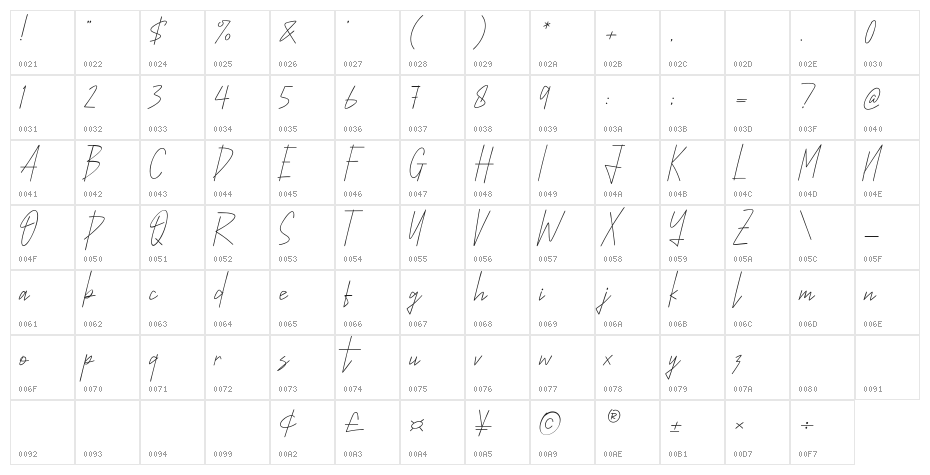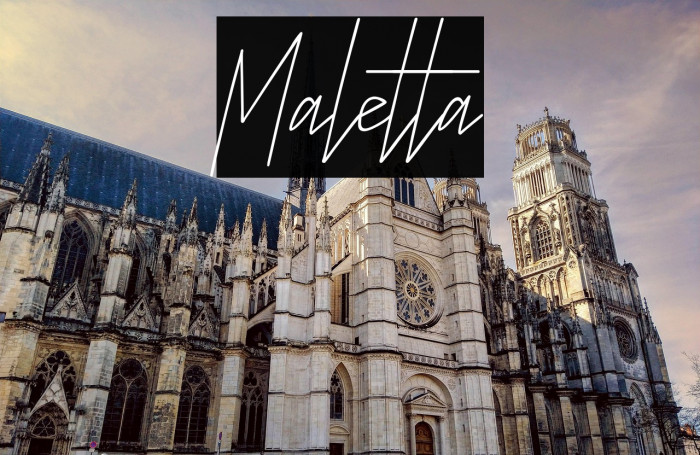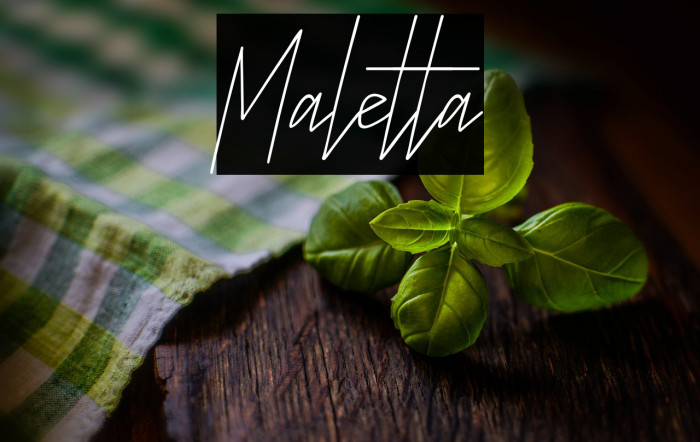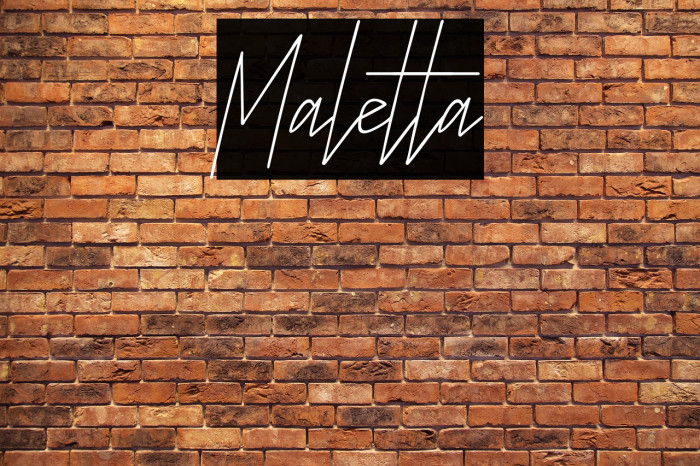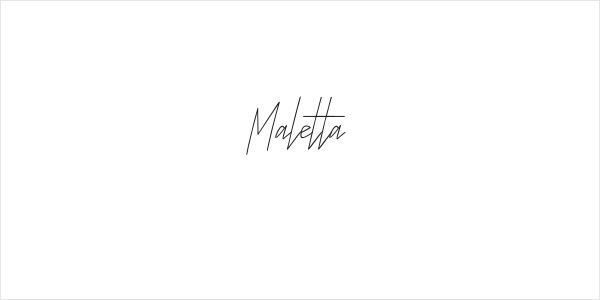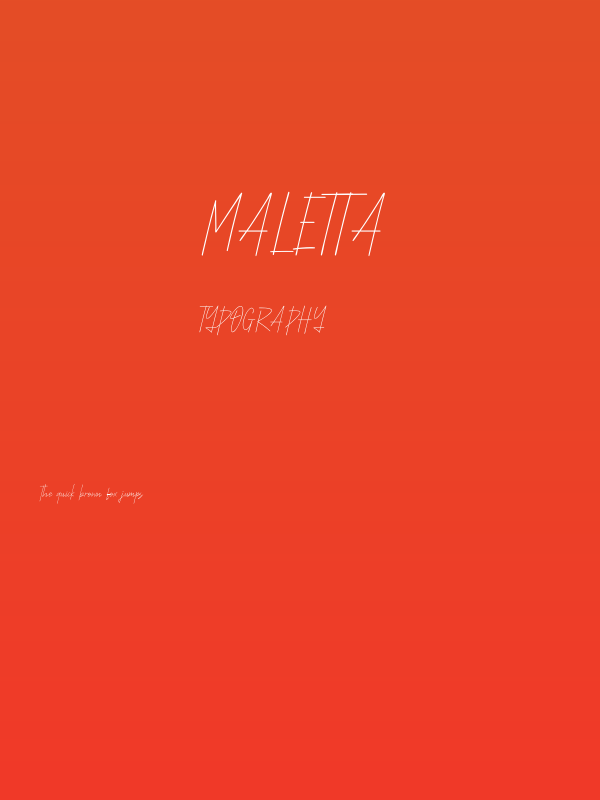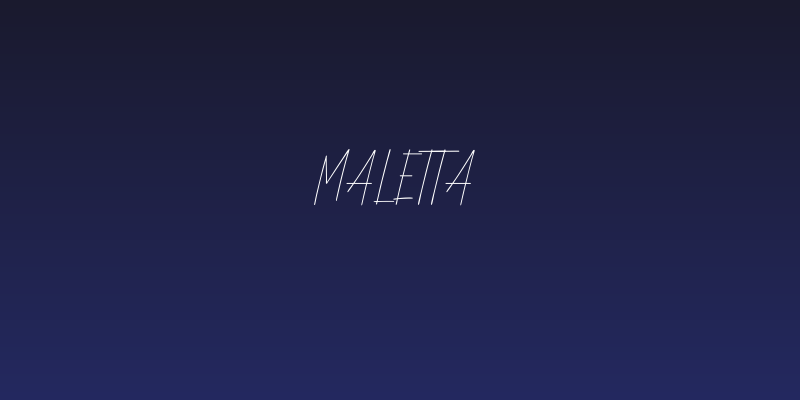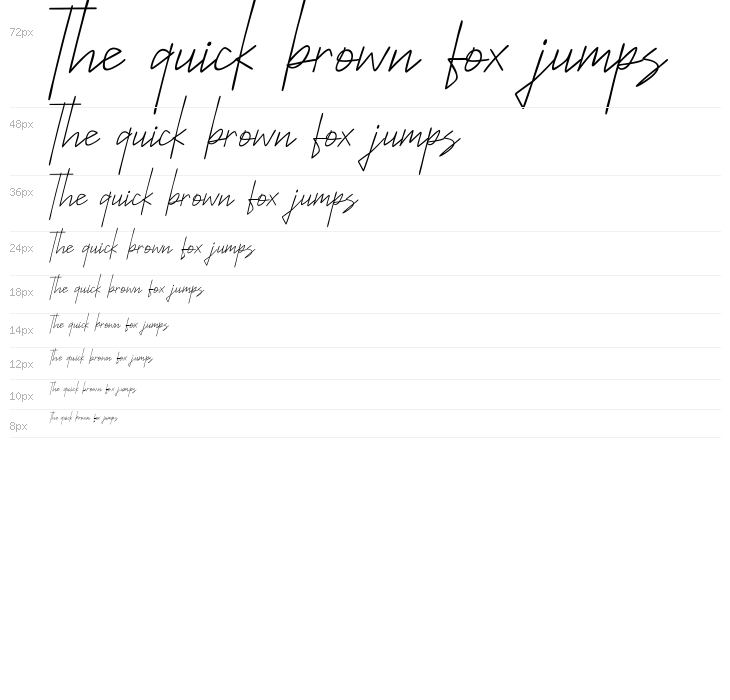
Maletta Font
Maletta Description
This font features a distinctive handwritten style with elongated, slender letterforms that convey a sense of elegance and fluidity. The characters are slightly slanted, enhancing the dynamic and informal appearance. The uppercase letters are tall and narrow, while the lowercase letters maintain a consistent flow, adding to the overall cohesiveness. The numerals and special characters are designed to match the script-like quality, ensuring uniformity across all elements. This font's unique style makes it suitable for creative and artistic projects, where a personal touch is desired.
| Width | Condensed |
| Use Case | Logos, Invitations, Artistic projects |
| Proposed Projects | Ideal for wedding invitations, personal branding, artistic posters, and creative projects. |